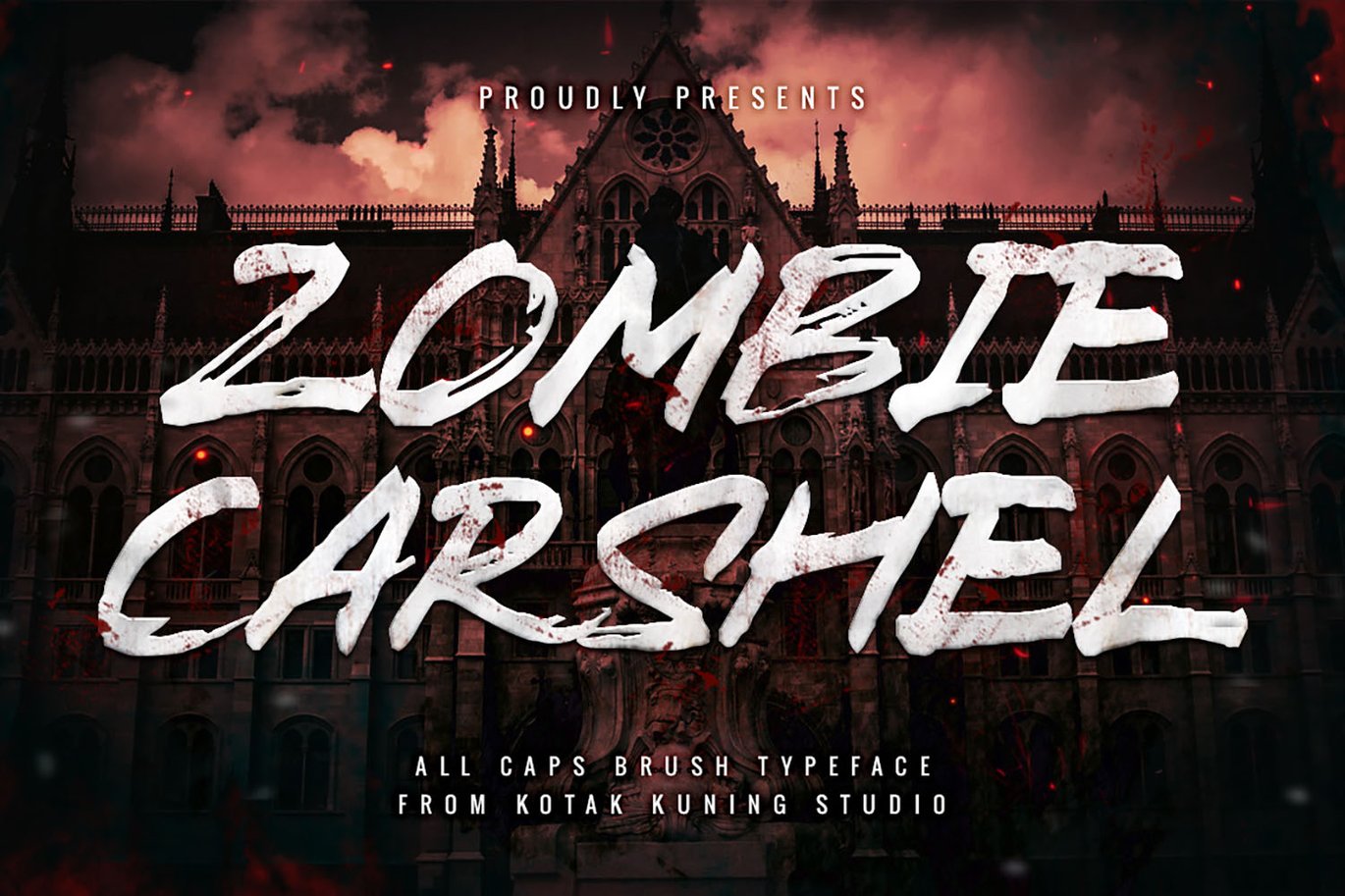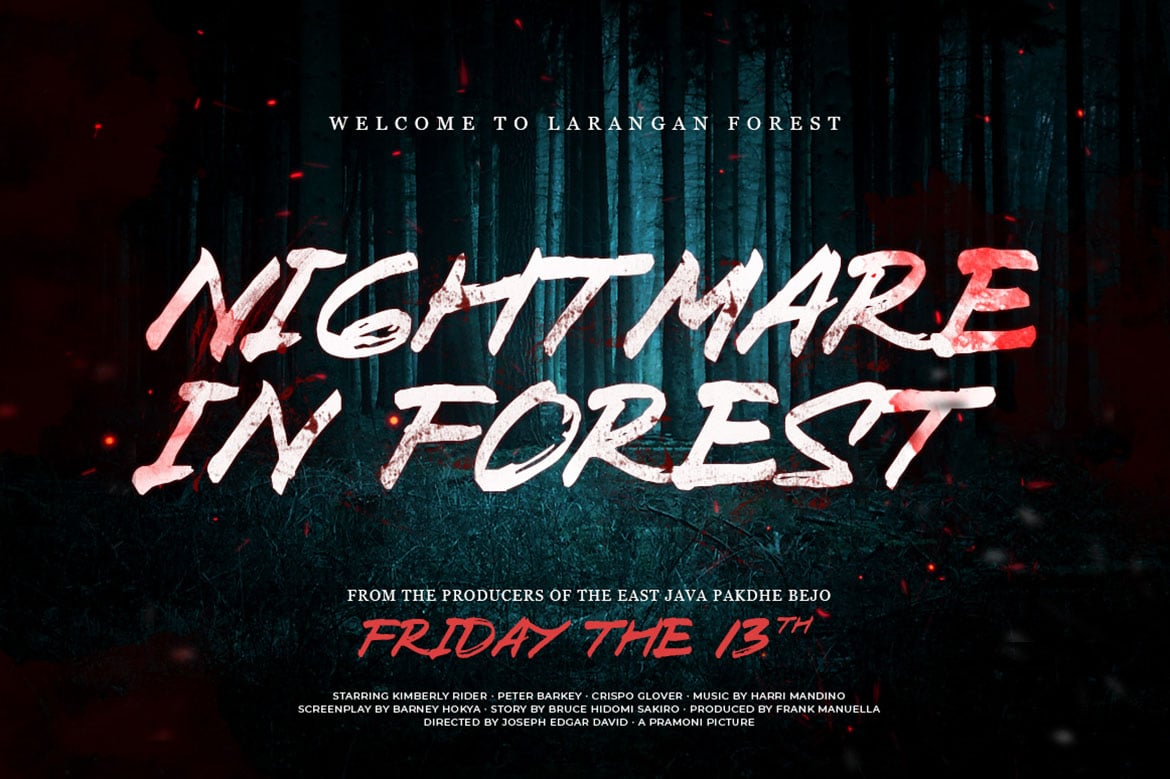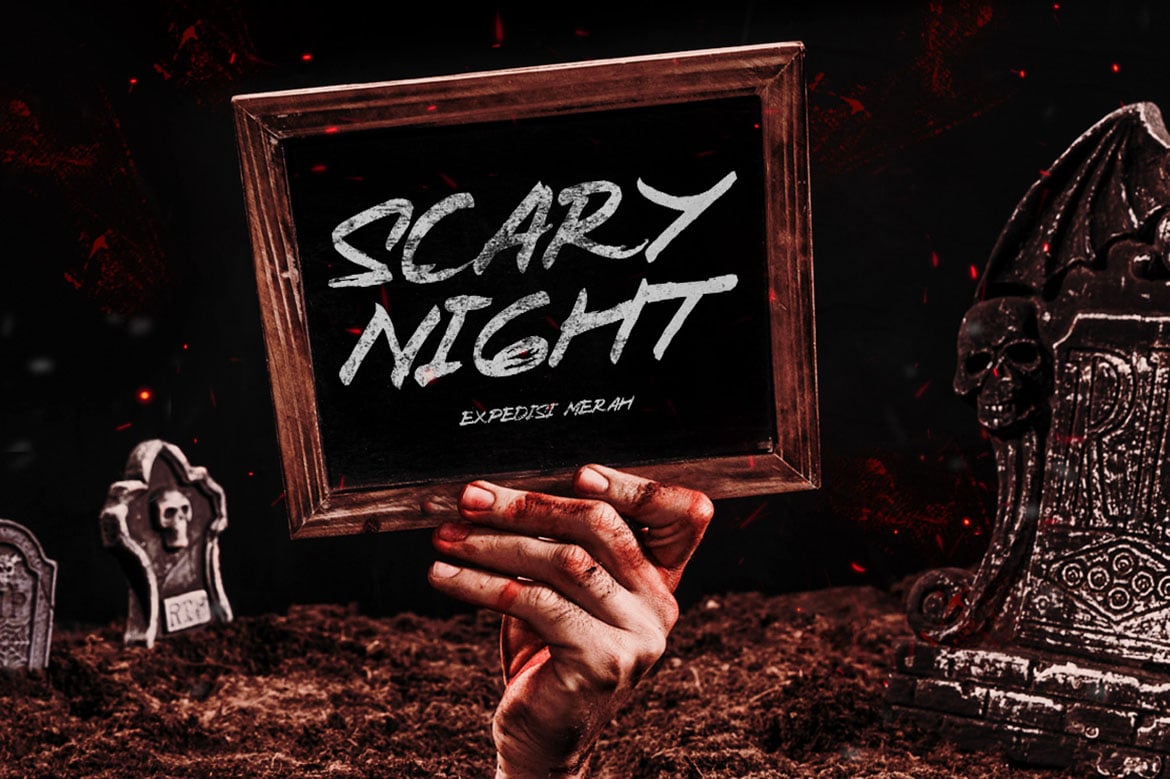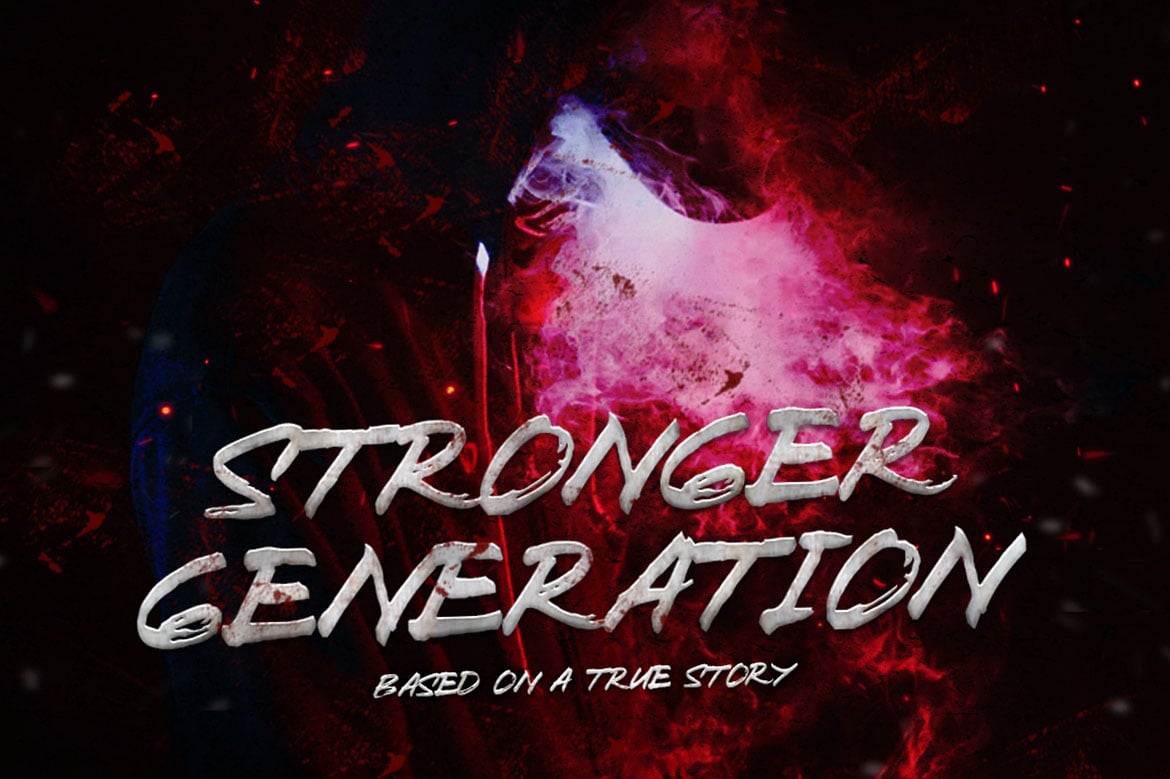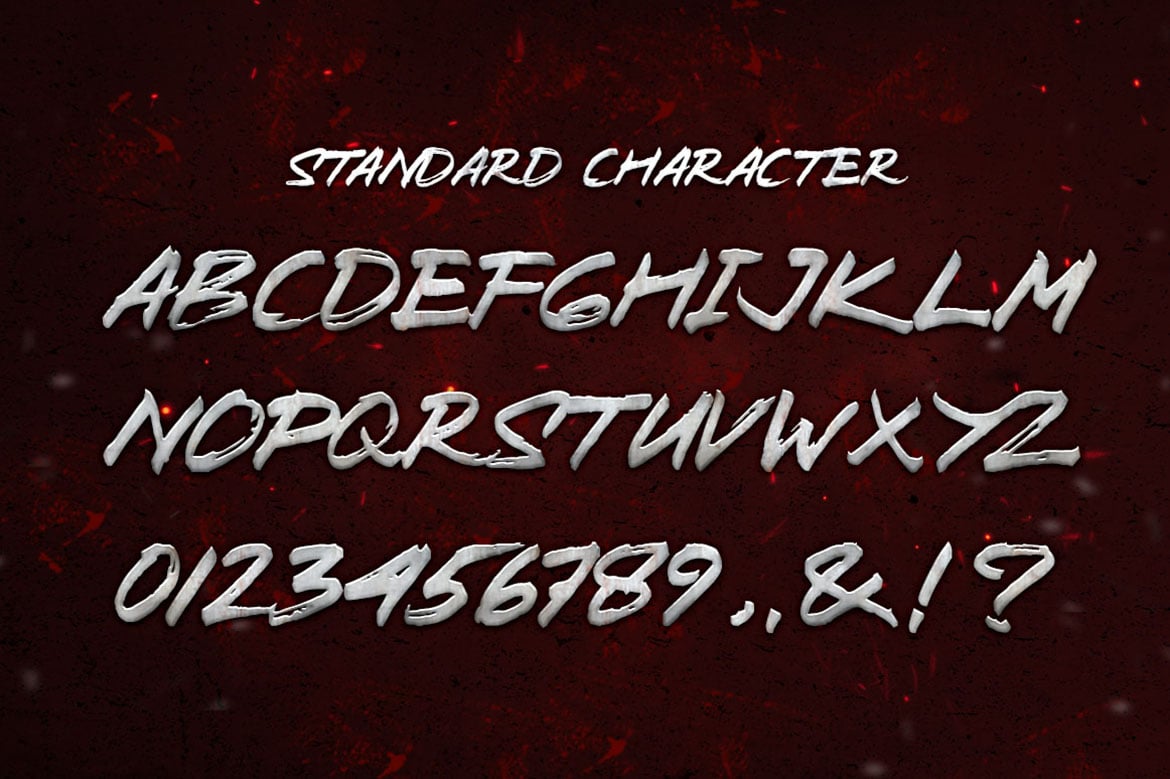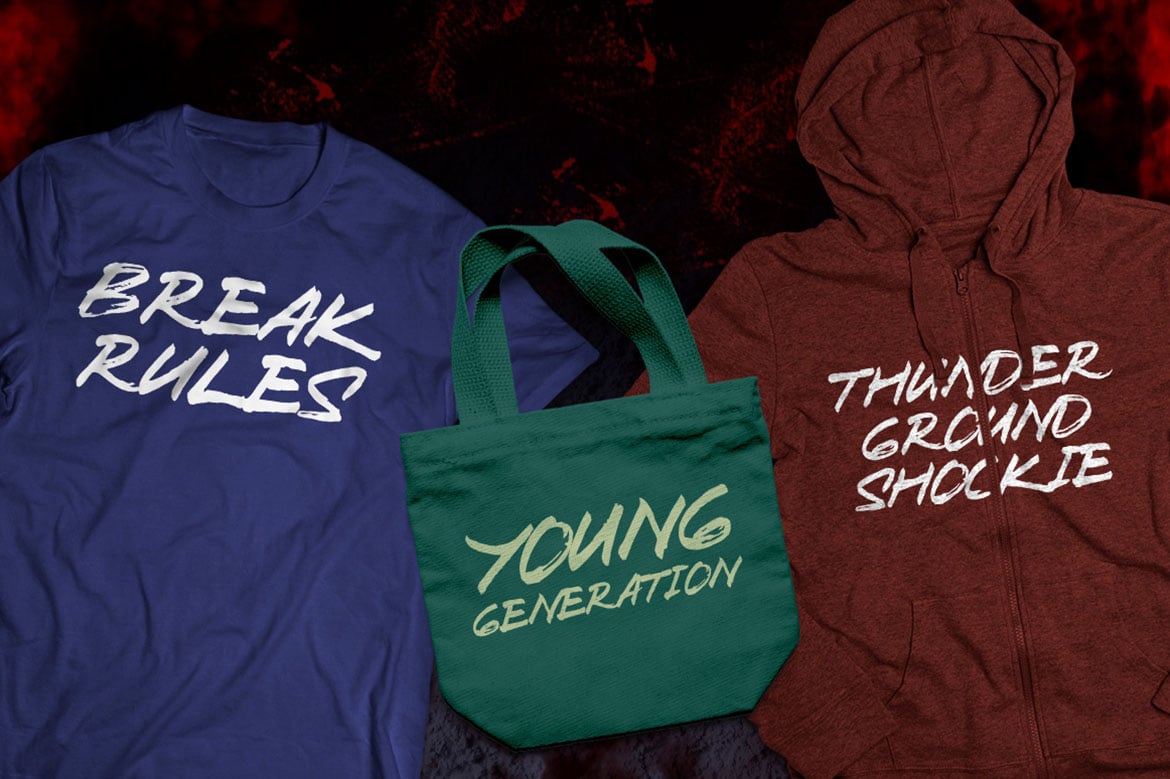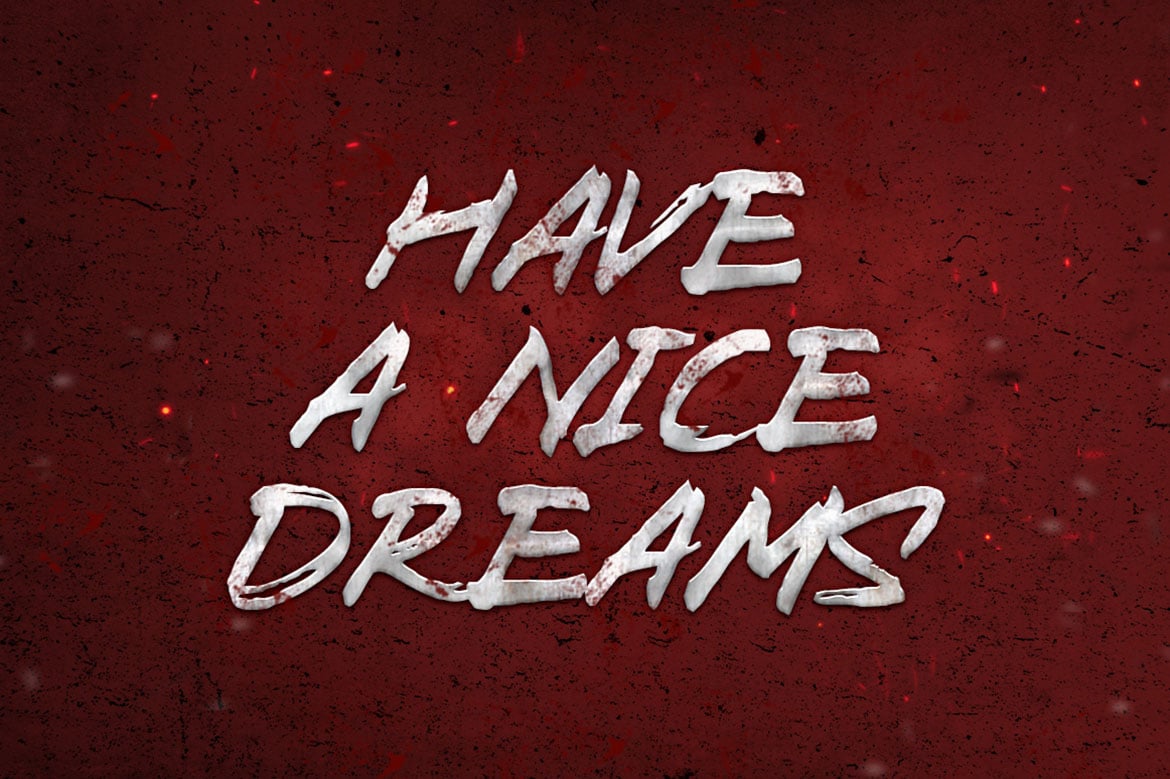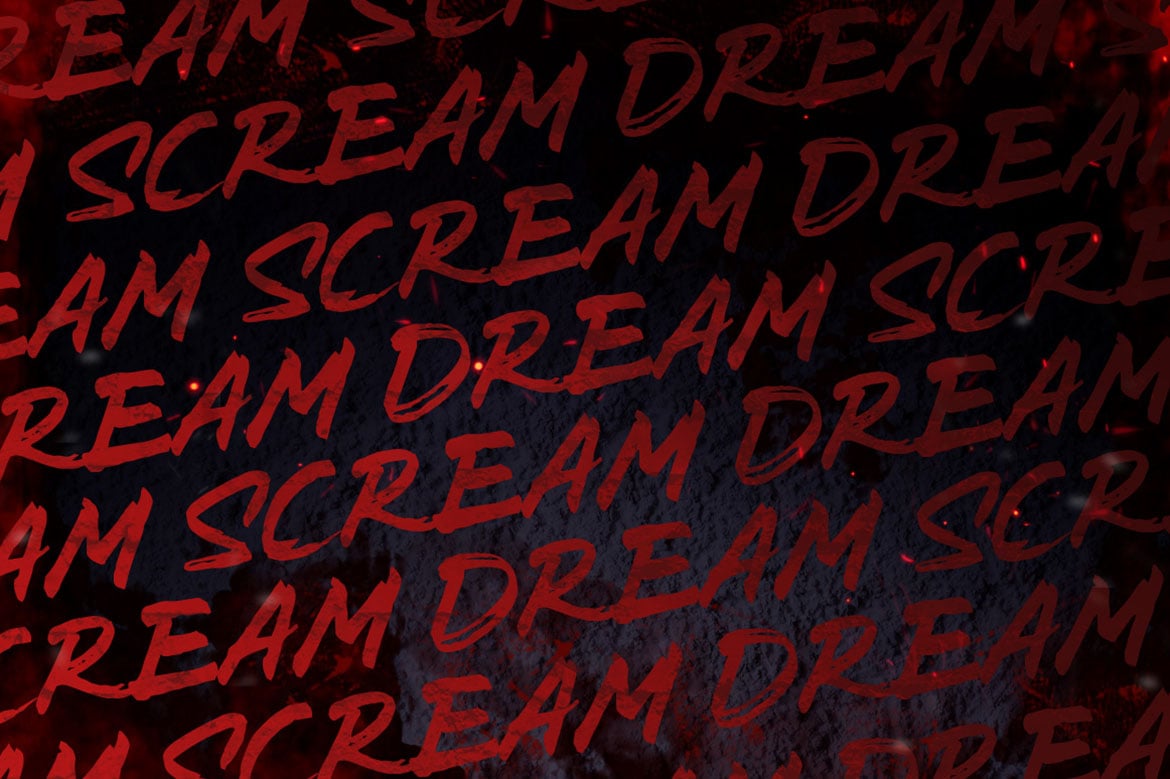
Zombie Carshel – Brush Textured Font
All caps hand-drawn font that was created with a dry brush which gives the more personal touch and makes the font looks being customized.
This font is suitable to use as a logotype, product designs, label, watermark, social media posts, apparel, invitation, signboard, sports club, motor/car, special events, or anything that needs handwriting taste.